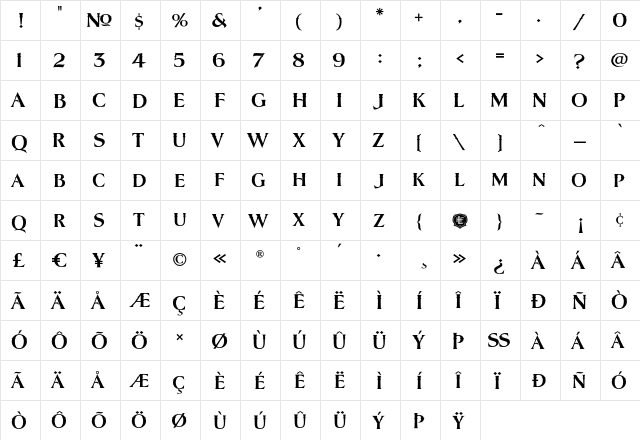
LHF Lakeside Country 1 Regular
| Foundry | Dave Correll for Letterhead Fonts |
| Designer | Dave Correll |
Design Context for LHF Lakeside Country 1 Typeface
LHF Lakeside Country 1 offers clean, dependable letterforms without strong stylistic allegiance, making it a practical choice for designers who need flexibility.